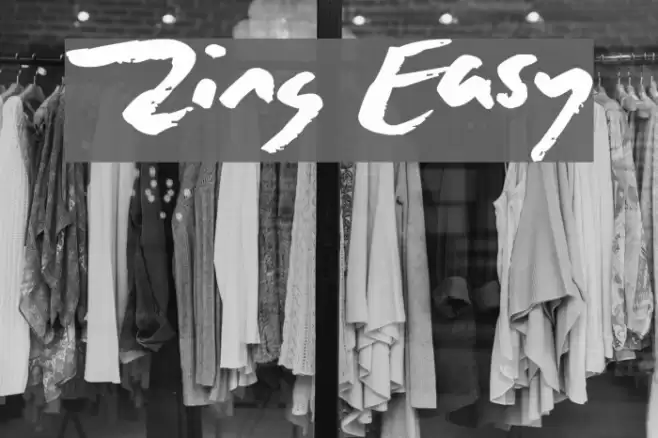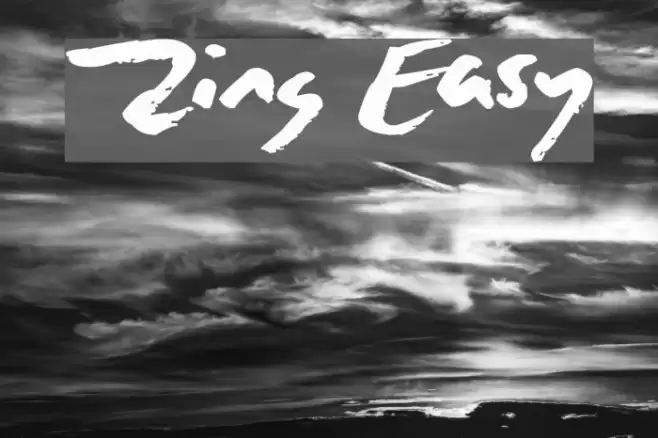
Zing Easy Font
Zing Easy Description
This font features a dynamic and expressive handwritten style, characterized by bold, sweeping strokes that convey a sense of energy and spontaneity. The uppercase letters are particularly striking, with a brush-like texture that adds depth and movement. The lowercase letters maintain this fluidity, offering a cohesive look across the alphabet. The numerals are presented in a more traditional serif style, providing a contrast to the freeform letters. Special characters are included, maintaining the same bold and artistic flair. This font is ideal for projects that require a personal touch or a creative, artistic vibe.
A bold, expressive handwritten font with dynamic brush-like strokes from Uncategorized fonts.
- Proposed Projects: Ideal for artistic projects, branding, posters, and invitations that require a personal and creative touch.